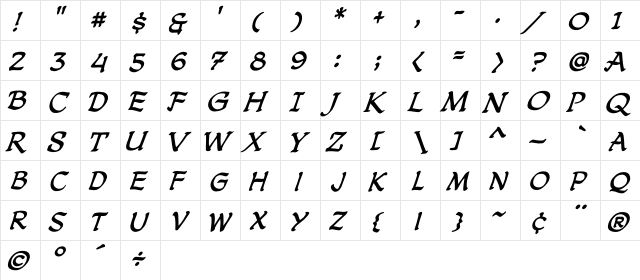
CCDreamland Regular
Design Context for CCDreamland Typeface
CCDreamland is a composed and adaptable typeface that performs quietly and consistently across a wide range of design contexts.
Pro Tip: Use CCDreamland in both headline and body roles to test its range before committing to a single application.